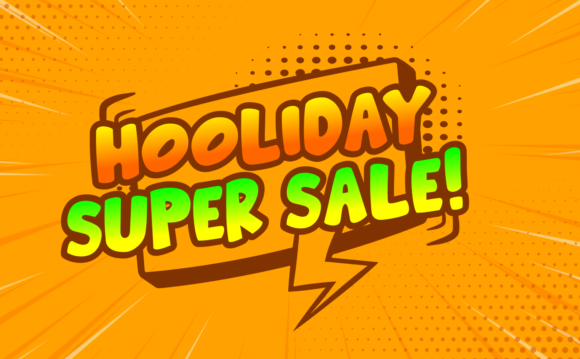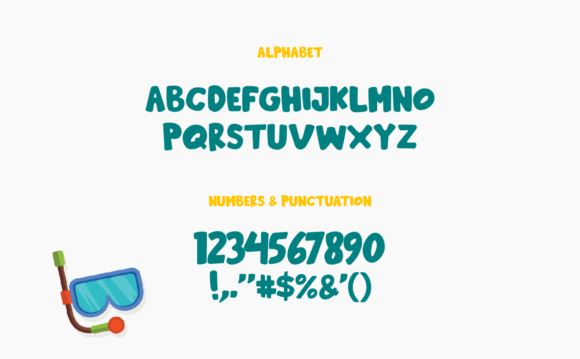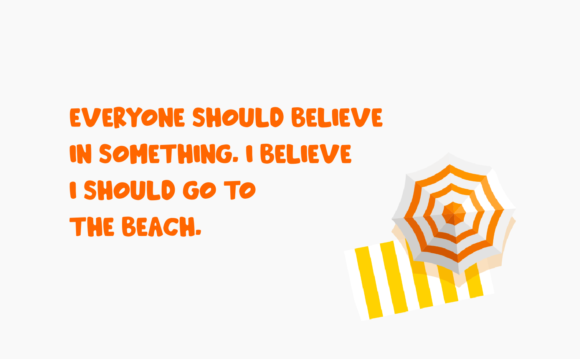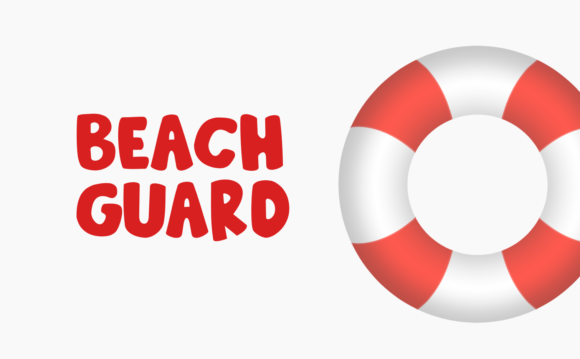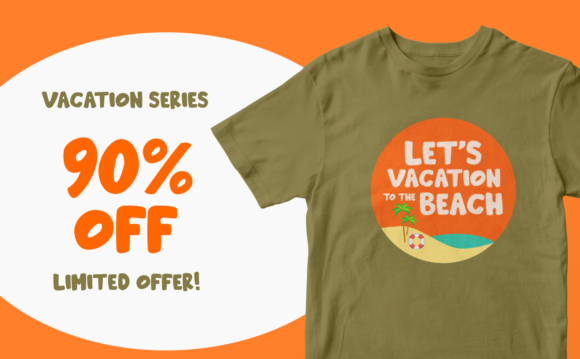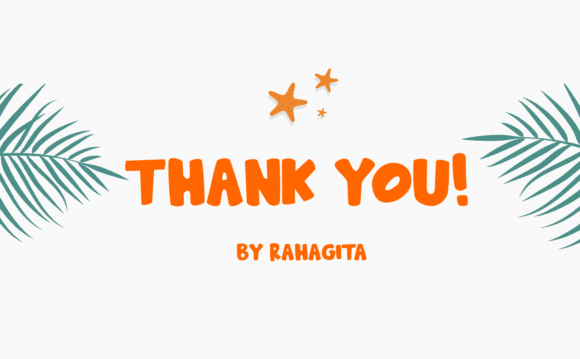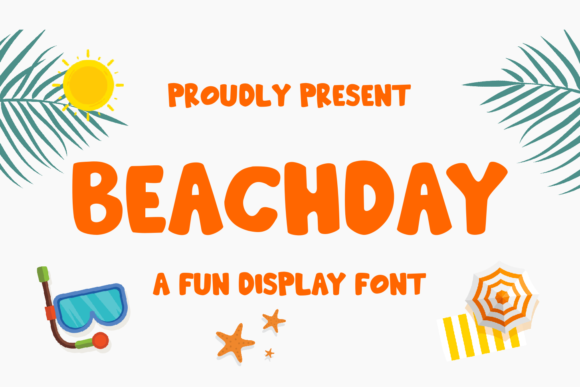
Introducing Beachday Font: The Ultimate Summer Display Font
Are you tired of using the same old fonts for your design projects? Look no further! Inspired by the carefree vibes of vacations, Beachday Font is a super fun and playful display font that’s sure to add a touch of whimsy to your creations. In this article, we’ll dive into the world of Beachday Font, exploring its features, benefits, and uses, as well as provide tips and tricks for designers and crafters.
A Whimsical Feel that’s Hard to Resist
Beachday Font is a display font that’s all about capturing the essence of a perfect beach day. With its playful and whimsical feel, this font is perfect for designs that require a lighthearted and fun approach. Whether you’re creating a poster, a social media graphic, or a craft project, Beachday Font is sure to bring a smile to your audience’s faces.
Key Features of Beachday Font
- Playful and Whimsical: Beachday Font features a unique and quirky design that’s sure to stand out from the crowd.
- Super Fun: With its bold and cheerful letters, Beachday Font is perfect for designs that require a fun and energetic vibe.
- Display Font: Beachday Font is designed specifically for display purposes, making it perfect for headlines, titles, and other attention-grabbing elements.
- Easy to Read: Despite its playful design, Beachday Font is surprisingly easy to read, making it perfect for a wide range of design projects.
Uses for Beachday Font
Beachday Font is a versatile font that can be used in a variety of design projects, including:
- Posters and Flyers: Use Beachday Font to create eye-catching posters and flyers for events, promotions, and products.
- Social Media Graphics: Add a touch of whimsy to your social media graphics with Beachday Font, perfect for creating engaging and shareable content.
- Craft Projects: Beachday Font is perfect for crafters who want to add a personal touch to their projects, such as handmade cards, scrapbook pages, and DIY decorations.
- Branding and Packaging: Use Beachday Font to create a unique and memorable brand identity for your business or product.
Here are some tips and tricks for getting the most out of Beachday Font:
- Experiment with Colors: Beachday Font looks great in bright and bold colors, so don’t be afraid to experiment and find the perfect hue for your design.
- Mix and Match: Combine Beachday Font with other fonts to create a unique and interesting contrast.
- Play with Size: Beachday Font looks great in large sizes, but it can also be used in smaller sizes to create a more subtle effect.
- Add Texture and Patterns: Add texture and patterns to your design to give it a more tactile and organic feel.
In conclusion, Beachday Font is a super fun and playful display font that’s perfect for designers and crafters who want to add a touch of whimsy to their creations. With its unique and quirky design, Beachday Font is sure to stand out from the crowd and bring a smile to your audience’s faces. Whether you’re creating a poster, a social media graphic, or a craft project, Beachday Font is the perfect choice for anyone looking for a fun and energetic font.